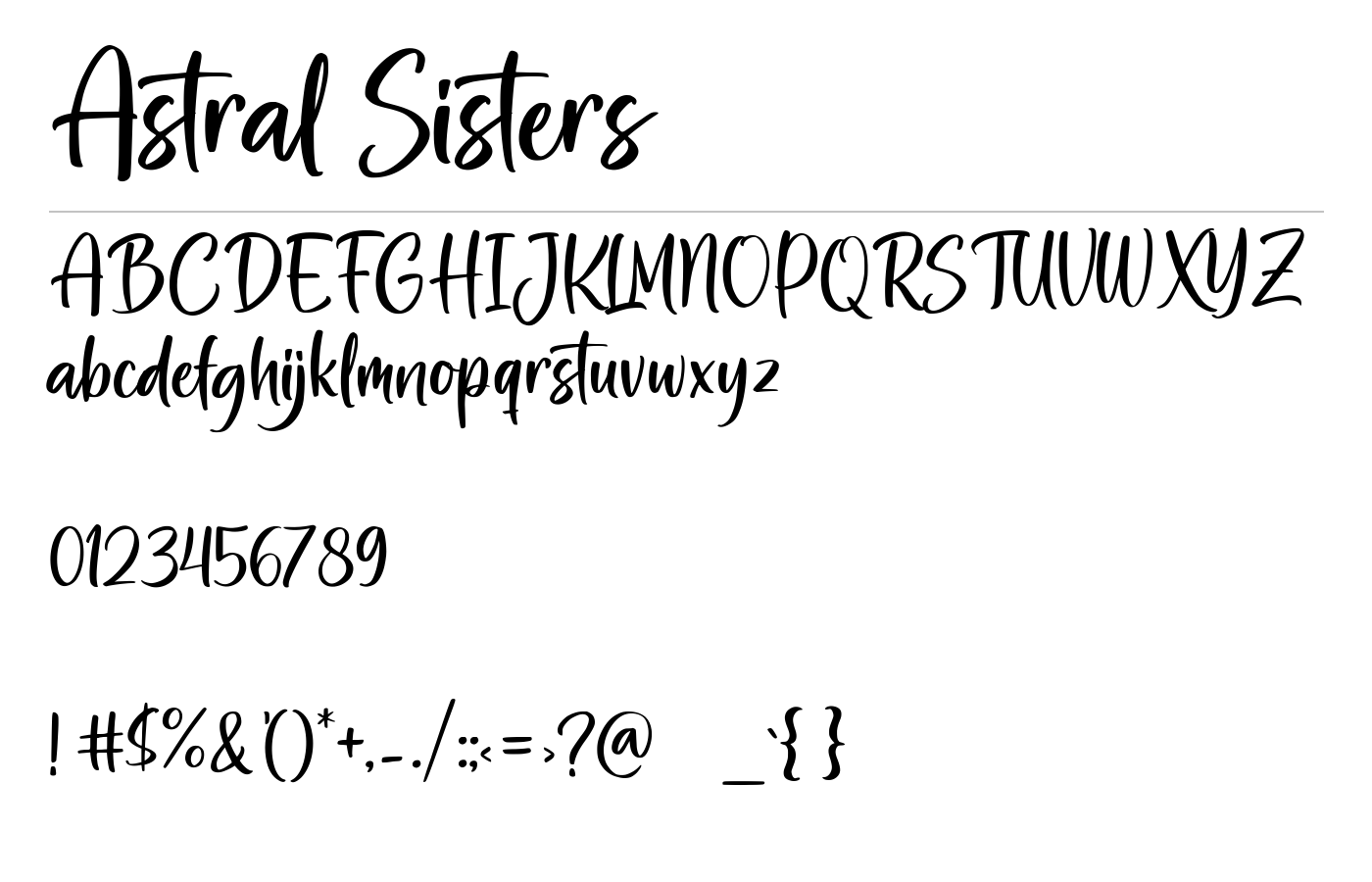
Astral Sisters is a casual script font with a handwritten, lively feel that combines smooth, flowing strokes with playful, irregular shapes. Its medium weight and slightly condensed forms give it an energetic yet approachable style, making it ideal for creative branding, invitations, and social media graphics where a personal and friendly touch is desired. This font works best in headlines and logos to add warmth and personality without sacrificing readability.
Astral Sisters Font
About Astral Sisters Font
| Font family | Astral Sisters Font |
| Designer | Octotype |